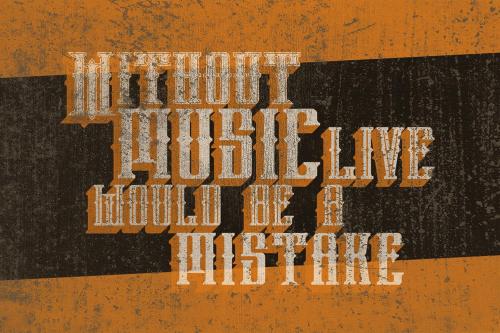
Phoenix Font
Phoenix Font is cool vintage style font from Jumbo Design. Great for your new vintage style projects. You can use this font for personal purpose.